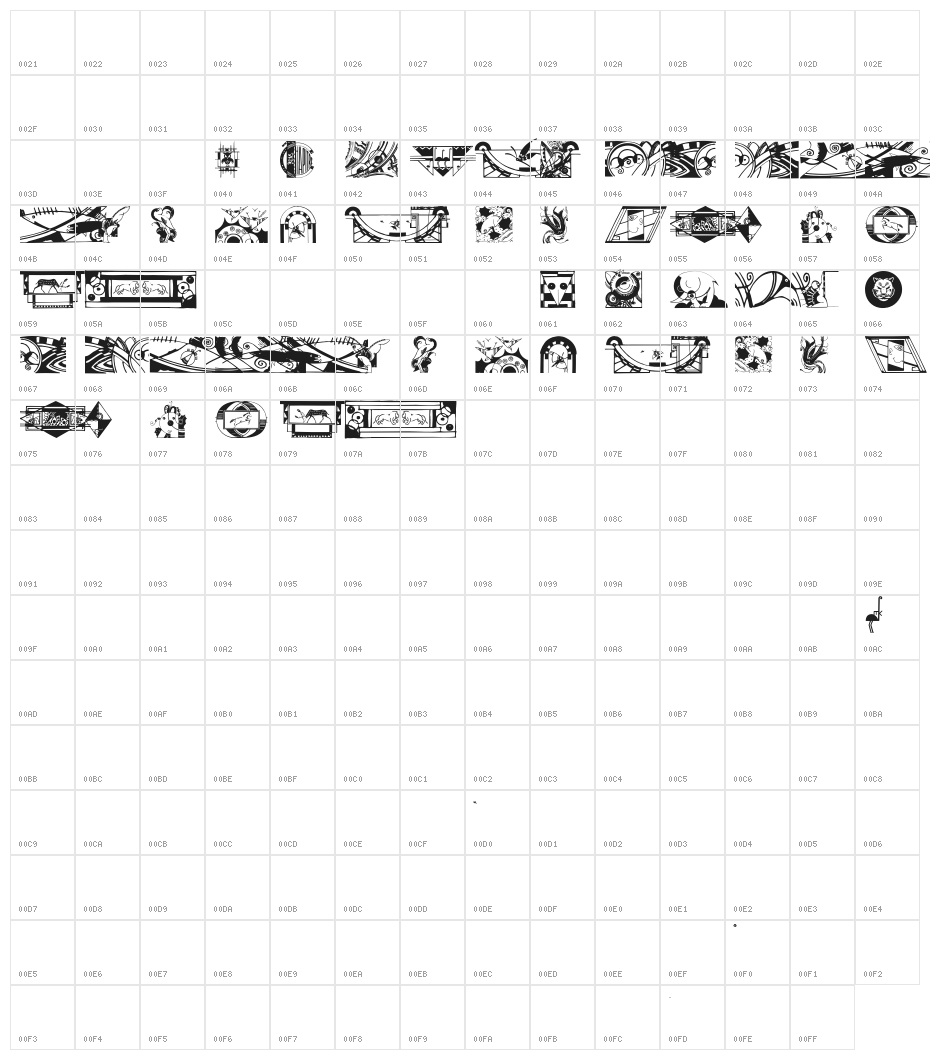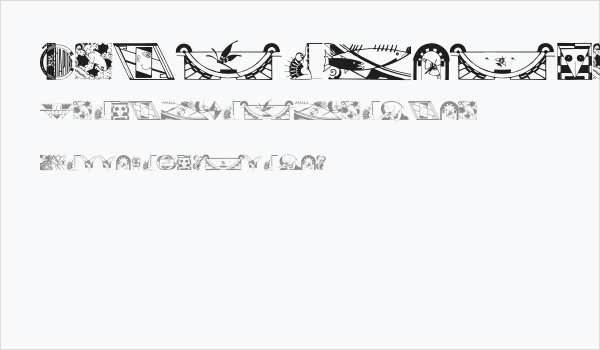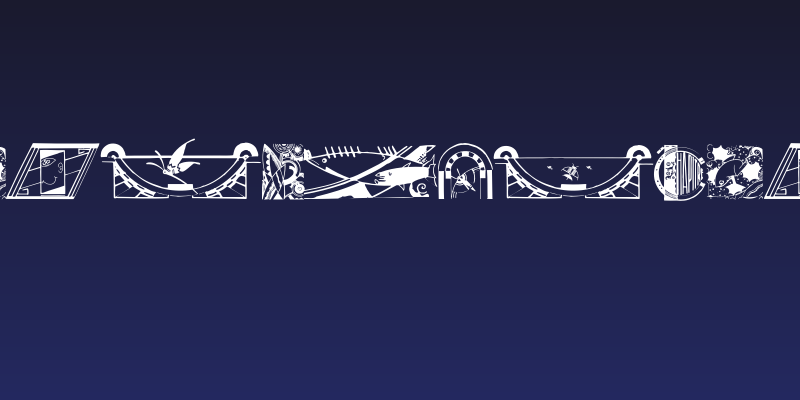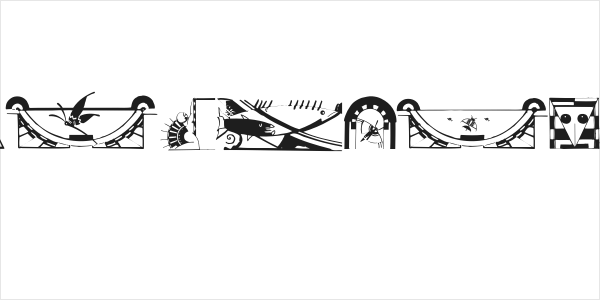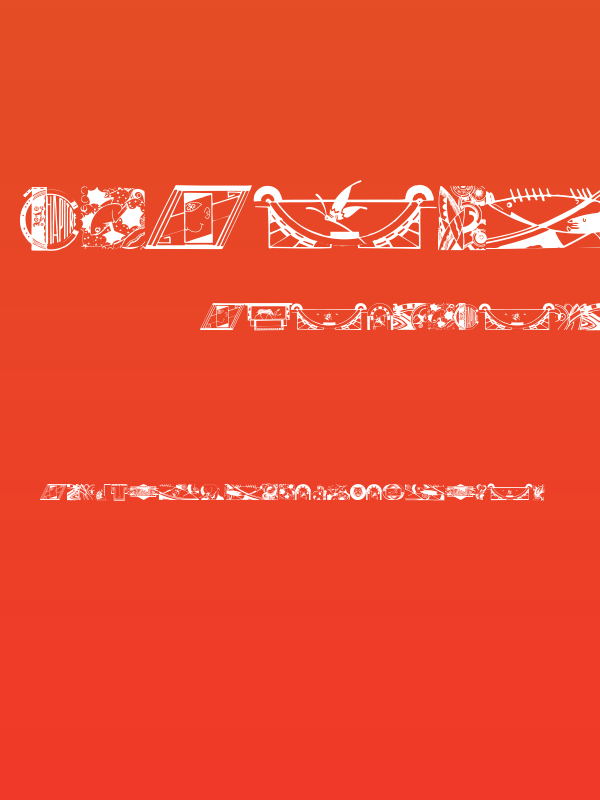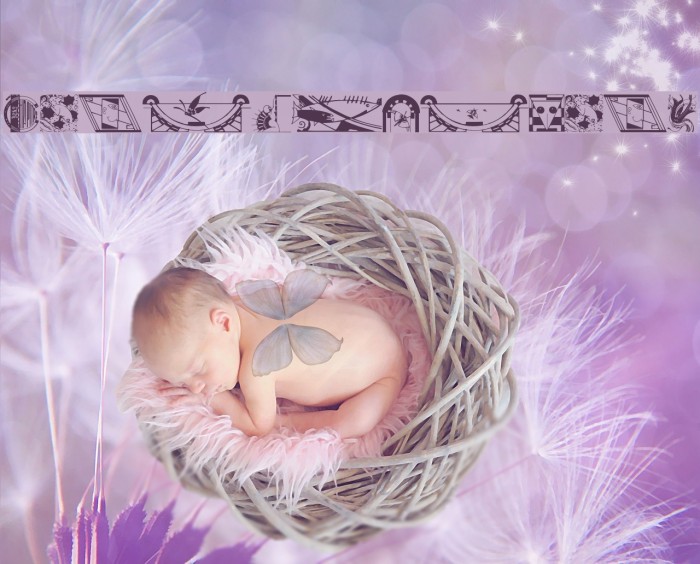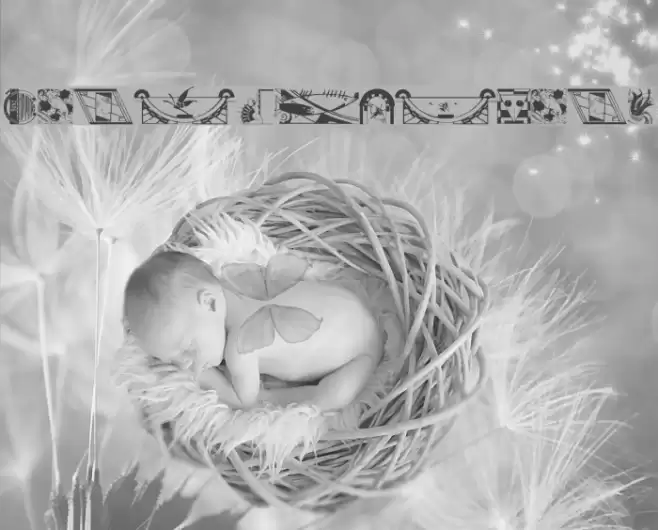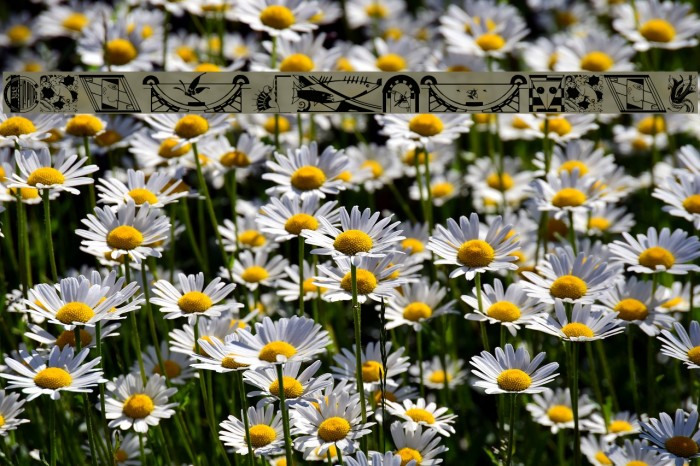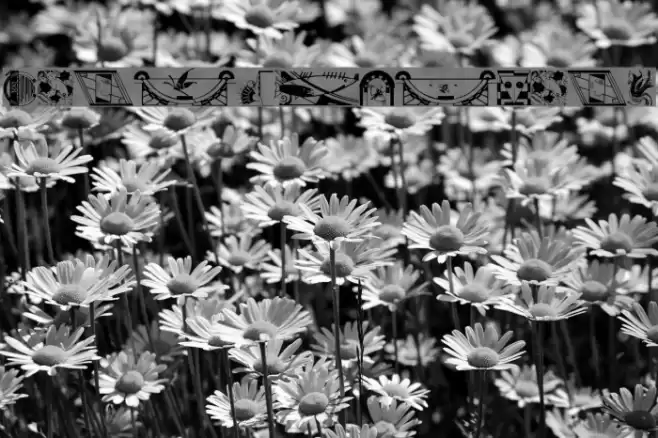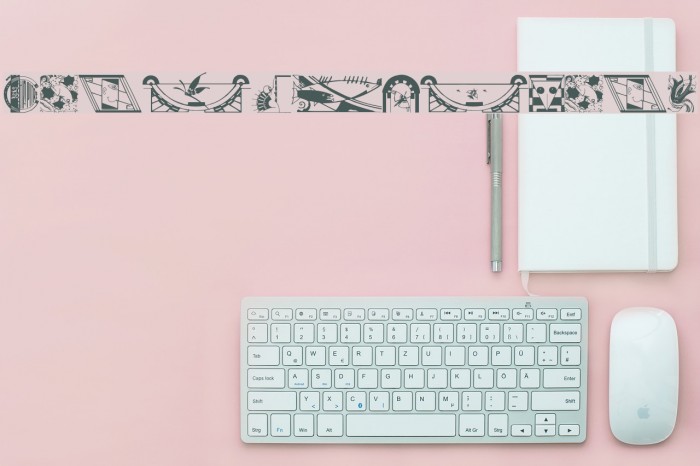
ArtDekoParts Font
This is a decorative font that embodies the intricate and ornamental style of the Art Deco period. Each character is designed with elaborate patterns and motifs, featuring geometric shapes, floral elements, and symmetrical designs. The font is highly stylized, with each letter and symbol appearing as a unique piece of art. The overall aesthetic is bold and eye-catching, making it suitable for projects that require a touch of elegance and sophistication. The characters are not uniform in width, adding to the eclectic and artistic feel of the font.
| Overall Style | Vintage, Decorative |
| Use Case | Logos, Headlines, Decorative elements |
| Proposed Projects | Ideal for use in vintage-themed posters, invitations, branding for luxury products, and decorative signage. |